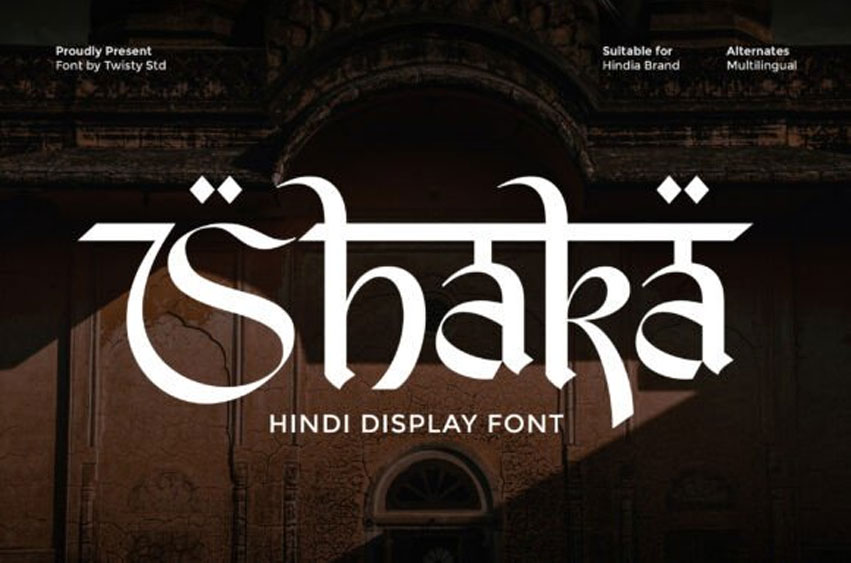
Shaka Font is a striking Hindi display font designed to capture attention with its stylish cultural character and modern visual appeal. Inspired by traditional
Devanagari forms, Shaka blends authentic Hindi style with a contemporary design approach, resulting in a typeface that feels both expressive and versatile.